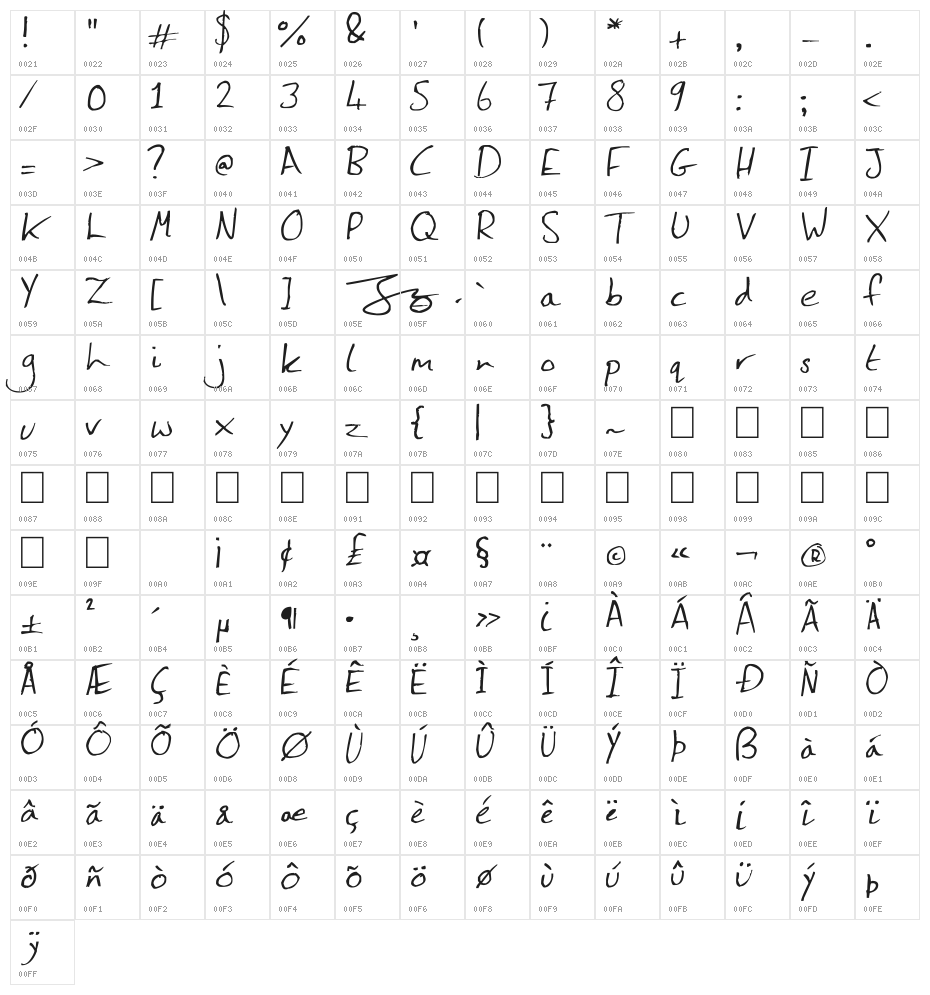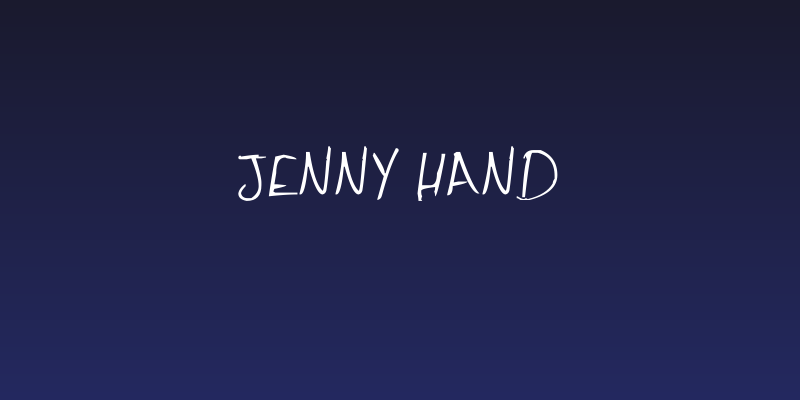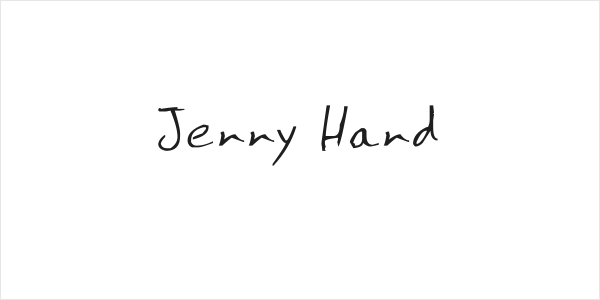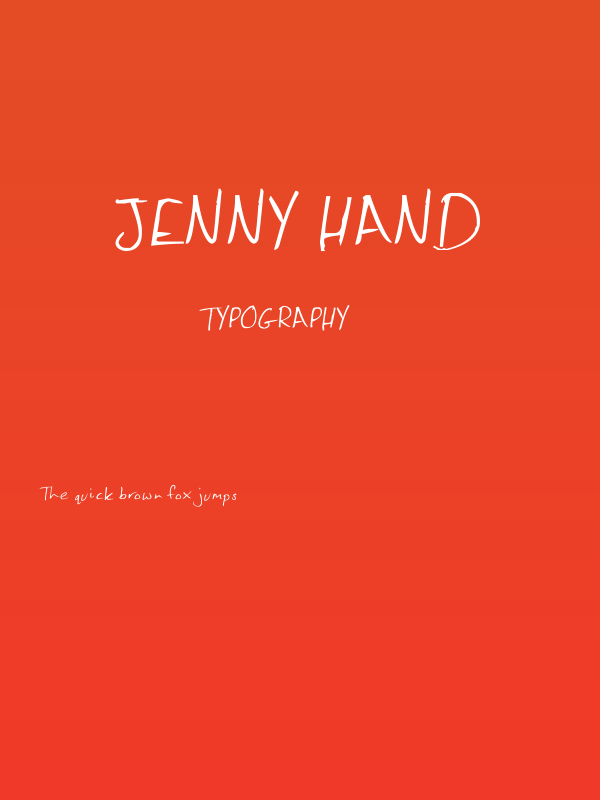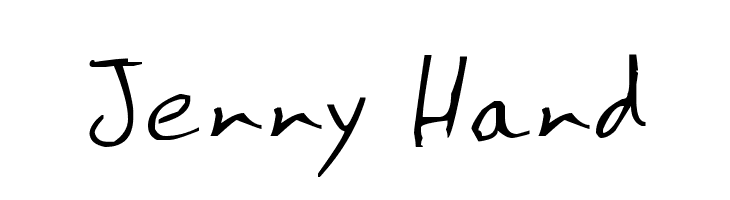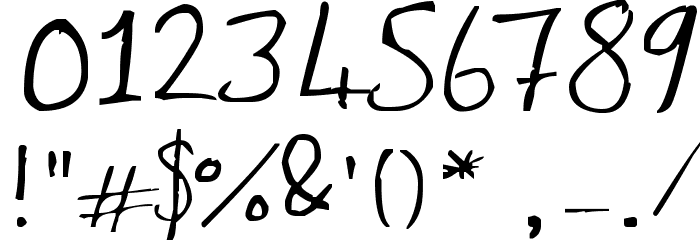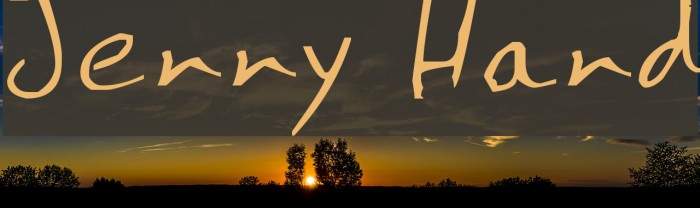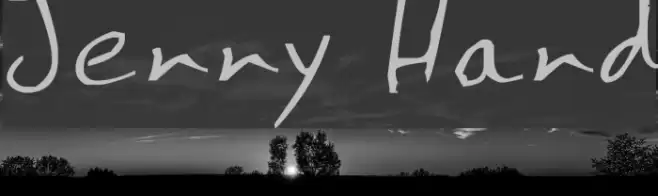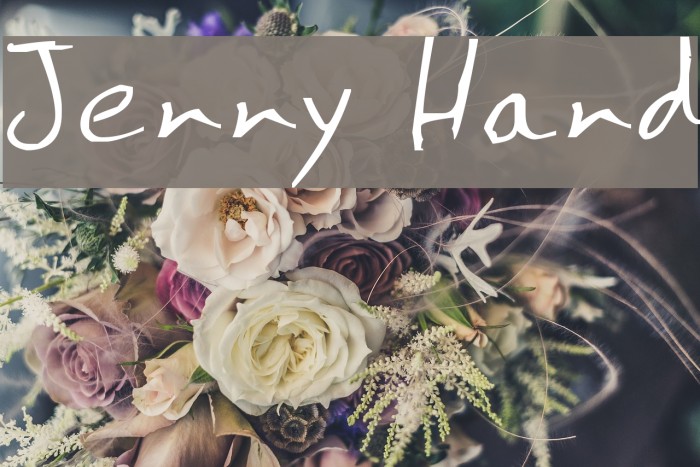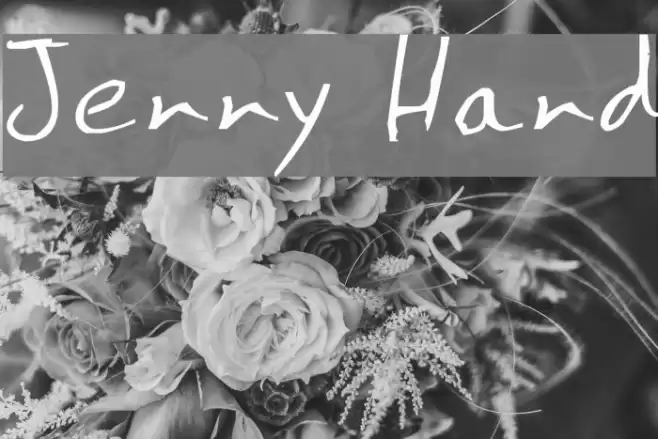
Jenny Hand Font
| 全体的なスタイル | Casual, Playful |
| 用途 | Headlines, Informal text, Creative projects |
| おすすめプロジェクト | Ideal for greeting cards, personal blogs, informal invitations, and creative projects that require a personal touch. |